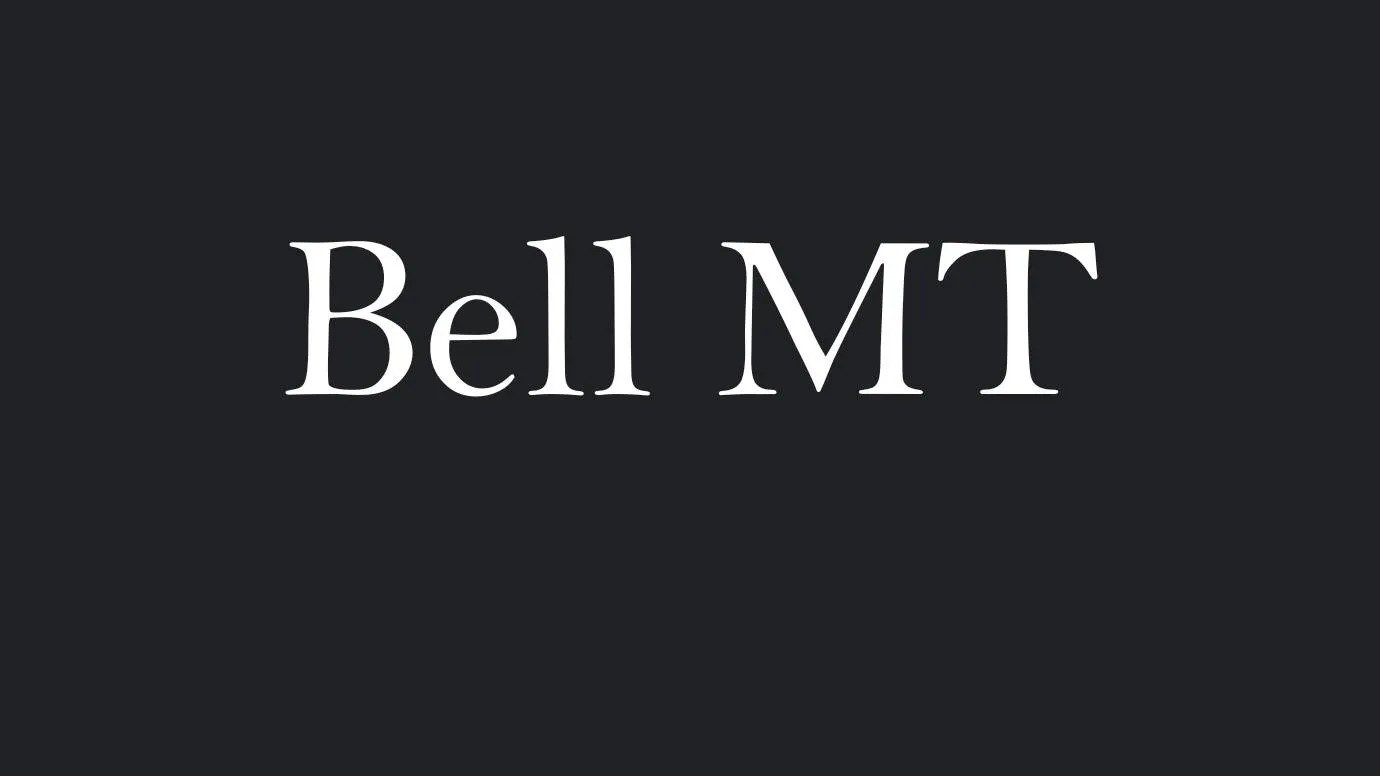
Bell MT Font Family is an elegantly sophisticated serif font that represents the contemporary iteration of the Bell typeface. Initially crafted by the highly renowned graphic designer Richard.
Another famous serif hot metal bell series based on this serif typeface was launched in 1931 with the help of Monotype corporations and designed in 1780 by Richard Austin for the John Bell foundry.
Bell MT Font Family
DesignerRichard Austin
StyleSerif